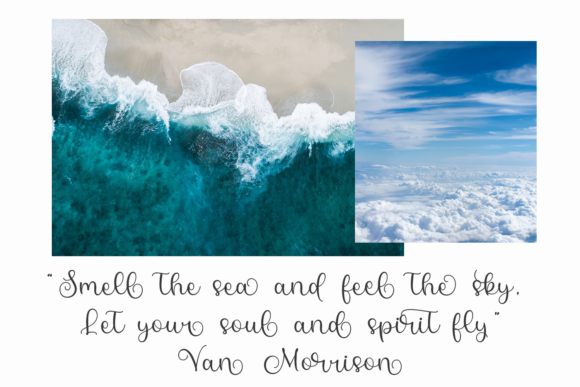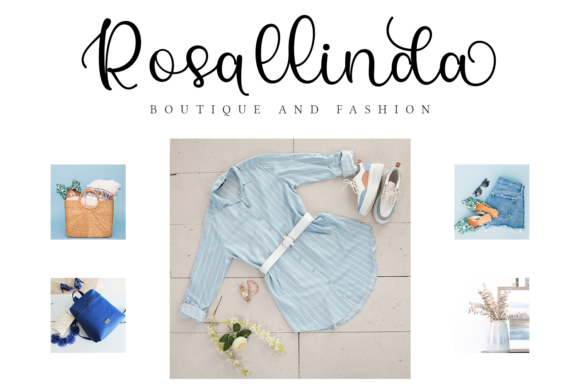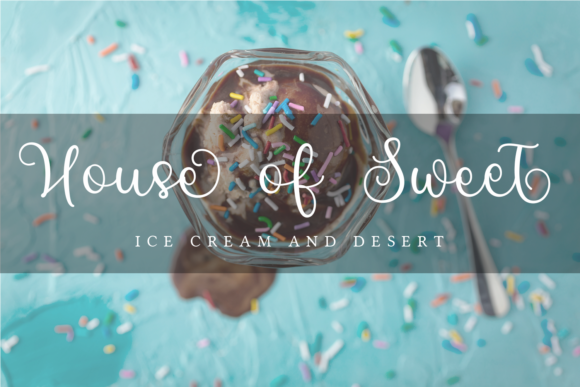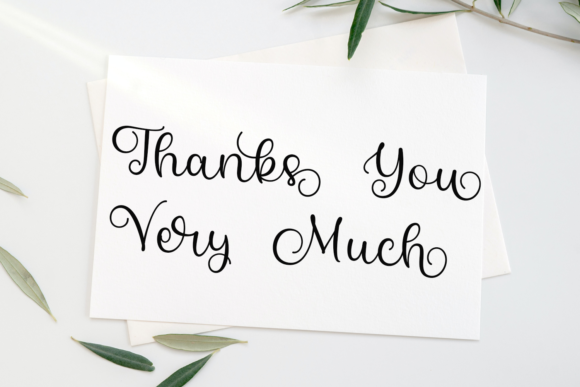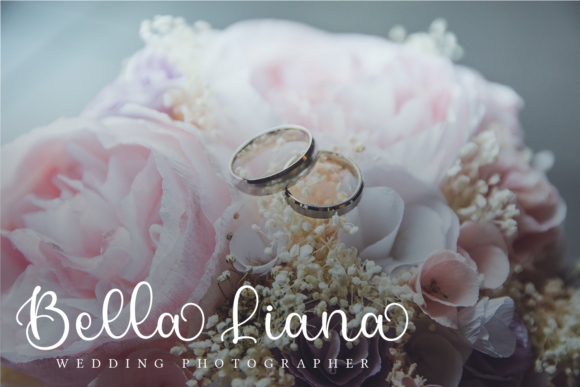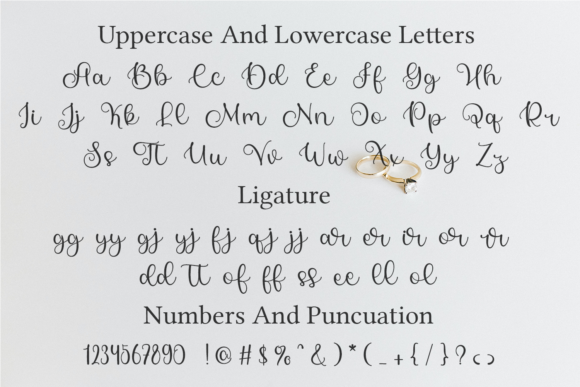
Introduction to Hello Rachel Font
Have you ever been working on a creative project, and the right font just seems to be missing? You want something that will elevate your design, make it stand out, and leave a lasting impression on your audience. For many designers, that perfect font is finally here: the Hello Rachel Font.
Imagine adding a touch of whimsy and charm to your design with a font that seems to dance along the baseline. The Hello Rachel Font is a lovely script font that features playful characters that will bring your creative ideas to life. With its high-quality design and PUA encoding, you’ll have access to all the glyphs and swashes you need to make your project truly special.
Key Features of Hello Rachel Font
- Designed to be highly legible, with a clear and modern aesthetic suitable for a wide range of creative projects.
- Comes in a range of sizes, from 12pt to 72pt, allowing for flexibility in design applications.
- Features a high-resolution design, ideal for use in print and digital media, including signage, posters, and web graphics.
Honest Review: Hello Rachel Font
I recently stumbled upon the Hello Rachel Font, and I’m excited to share my thoughts on this creative project. As a designer, I’m always on the lookout for high-quality fonts that can elevate my designs.
Here are some aspects that work well with this font:
- ✨ High-quality design: The Hello Rachel Font has a beautiful, elegant design that’s perfect for creative projects.
- ✨ Transparent background: The font has a transparent background, making it easy to use with various design elements.
- ⚠️ Limited font styles: While the Hello Rachel Font has several styles, it’s not as extensive as some other fonts I’ve used.
- ⚠️ Not suitable for all projects: The font’s elegant design may not be suitable for more casual or playful projects.
Overall, I think the Hello Rachel Font is a great addition to any designer’s toolkit. Its high-quality design and transparent background make it a versatile resource for creative projects. While it may have some limitations, I appreciate that it’s available for free download, making it a valuable design resource.
Hello Rachel Font
Introduction to Hello Rachel Font
Hello Rachel Font is a high-quality, free design resource ideal for creative projects. With its unique style and transparent background, it’s perfect for adding a personal touch to your designs.
Tips for Getting the Most Out of Hello Rachel Font
To get the most out of Hello Rachel Font, experiment with different font sizes, colors, and combinations to find the perfect look for your design.
Common Use Cases for Hello Rachel Font
Hello Rachel Font is commonly used for creative projects such as invitations, posters, and social media graphics. Its unique style and transparent background make it perfect for adding a personal touch to your designs.
Lato is similar to Hello Rachel Font in its clean design but has a more minimalist approach. While Hello Rachel Font has a softer, more rounded look, Lato is more geometric and modern.
Open Sans is more condensed than Hello Rachel Font and has a slightly different feel. While Hello Rachel Font is more rounded and friendly, Open Sans is more modern and professional.